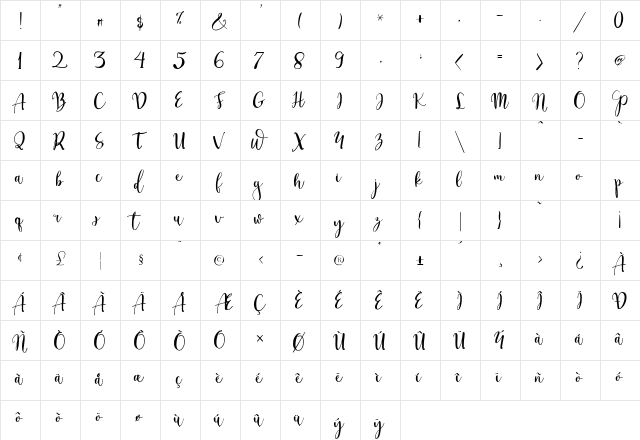
Craftylover Regular
Design Context for Craftylover Typeface
Craftylover is a composed and adaptable typeface that performs quietly and consistently across a wide range of design contexts.